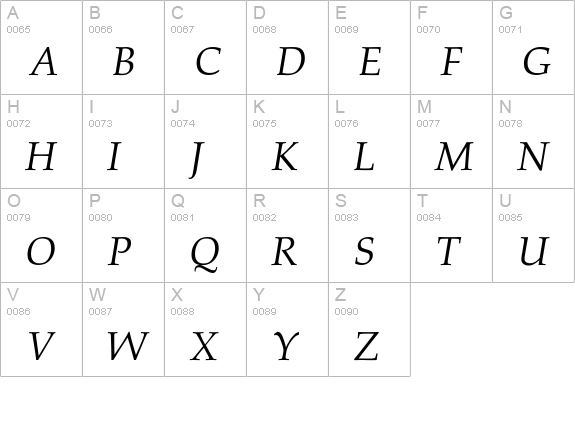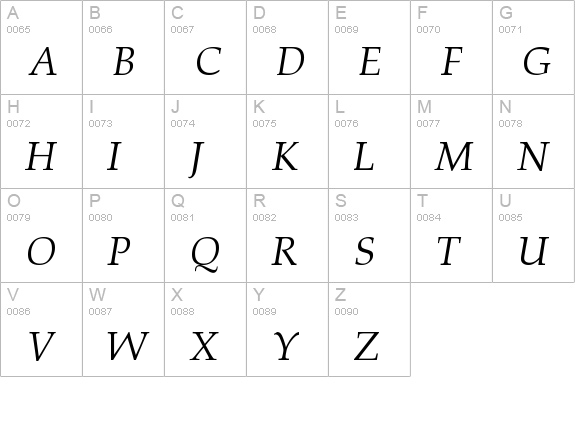
Palacio-Normal-Italic Font Details
Palacio-Normal-Italic is the standard, neutral, italic variant in the Palacio typeface family \xE2\x80\x94 well suited to general body text, paragraphs, and standard typographic work.
Palacio-Normal-Italic is an exquisite and elegant font that effortlessly combines sophistication with a touch of playfulness. Its flowing curves and delicate strokes give it a unique charm, making it perfect for any design project that requires a touch of class. This font is a true testament to the beauty of italic typography, as it effortlessly captures attention and adds a sense of elegance to any text. Whether you are creating a logo, designing a poster, or writing an invitation, Palacio-Normal-Italic will elevate your creations to new heights. One of the best things about Palacio-Normal-Italic is that it is not only visually stunning but also freely available to download at FontsMarket.com. This means that you can enhance your designs with this exceptional font without any cost. Its availability ensures that designers of all skill levels can access and use this font to create mesmerizing visuals. With its wide range of characters and glyphs, Palacio-Normal-Italic offers versatility and flexibility. Whether you need to create a striking headline or add a touch of elegance to body text, this font has got you covered. Its legibility and readability make it perfect for both print and digital designs. The sleek and stylish design of Palacio-Normal-Italic is a testament to the skill and craftsmanship of its creator. Its smooth and graceful curves make it a joy to work with, while its attention to detail ensures that every character is meticulously crafted. Whether you are a professional designer or a beginner, Palacio-Normal-Italic is a font that will inspire and delight. Its timeless beauty and versatility make it a must-have in any designer's toolkit. Download this font for free at FontsMarket.com and let your creativity soar to new heights.